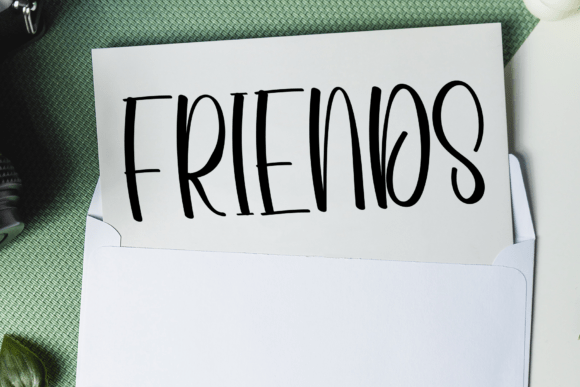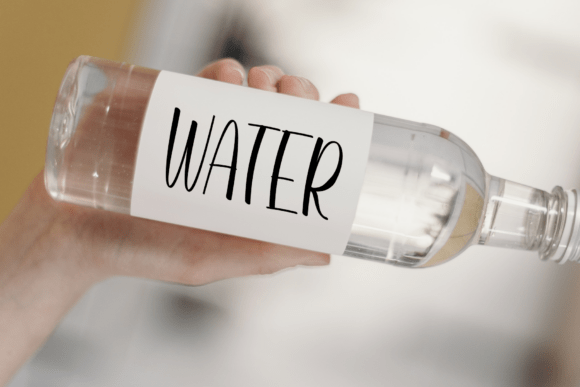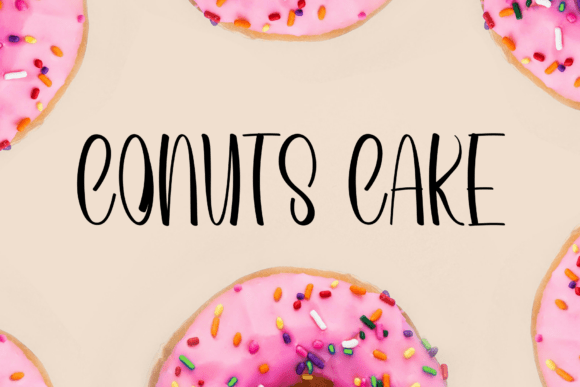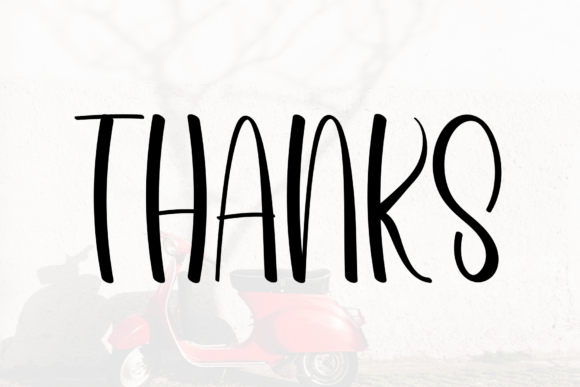
Unleash Your Creativity with the Belizion Font
There’s nothing quite like the thrill of sitting down at your desk, surrounded by scribbled notes, scattered ideas, and the faint scent of coffee. As a designer, you’re always on the hunt for the perfect font to bring your vision to life. And sometimes, it’s not just about finding the right font, but about discovering the perfect character that will set your design apart.
Enter the Belizion Font, a sweet and beautiful handwritten font that features characters that dance along the baseline. This charming font is the perfect addition to any design project, adding a cozy accent that will leave a lasting impression. Whether you’re working on a personal project or a client’s design, the Belizion Font is a valuable tool that will help you create something truly special.
Belizion Font Key Features
- Unique Characteristics: Elegant script font with a touch of sophistication, ideal for wedding invitations, branding, and luxury products
Belizion Font Review
As a designer, I’ve had the chance to work with a wide range of fonts, and the Belizion font is definitely an interesting one. Here’s my honest review.
- Unique aesthetic: The Belizion font has a distinctive, modern look that’s sure to grab attention.
- Readability: Despite its unique design, the font is still easy to read, making it a great choice for body text.
- Cross-platform compatibility: The font works well on both desktop and mobile devices, making it a great choice for multi-platform projects.
- Limited font sizes: The font starts to look a bit pixelated when scaled up to larger font sizes.
- Lack of bold weights: The font only comes in a few weights, which can limit its use in certain design situations.
- Not suitable for large blocks of text: While the font is readable, it’s not the most comfortable choice for large blocks of text, such as articles or essays.
Overall, the Belizion font is a solid choice for designers looking for a unique, modern aesthetic. However, it may not be the best choice for projects that require a lot of bold text or large blocks of text. With a bit of careful planning, though, it can be a great addition to your design toolkit.
Belizion Font is ideal for use in modern designs, such as logos, branding materials, and digital interfaces. It’s also suitable for use in editorial and publishing materials, such as magazines and newspapers.
Belizion Font is particularly effective when paired with bold, sans-serif fonts to create a striking contrast and visual interest.